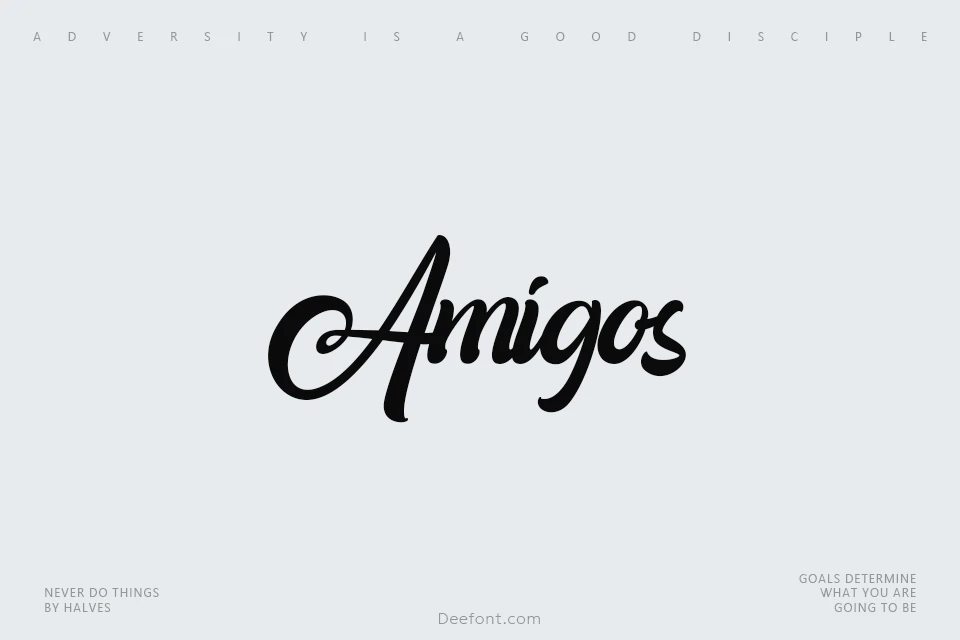
Amigos Font
Amigos Font is a modern hand lettering typeface that combines striking elegance with excellent readability. Its letters feature refined strokes and subtle flair, making it perfect for display designs such as logos, posters, and titles. The font’s modern aesthetic and fluid lines create a sophisticated yet approachable look, ideal for branding, social media graphics, and advertising materials. With its versatility and legibility, Amigos is a great choice for designers seeking to add a touch of contemporary style to their projects while maintaining clarity and visual appeal across various digital and print platforms.